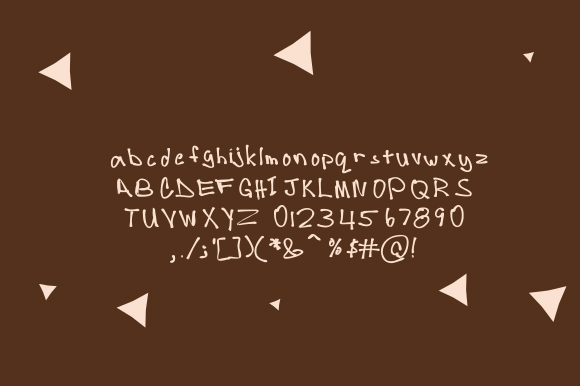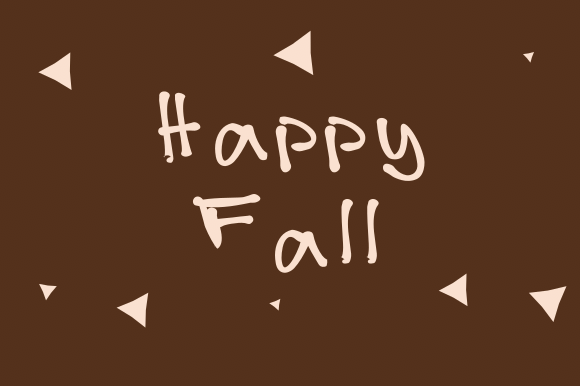
Cringe Worthy Font: The Quirky Handwritten Font for Creative Projects
Are you tired of using the same old boring fonts for your creative projects? Look no further! Cringe Worthy Font is a quirky handwritten font that’s perfect for adding a personal touch to your designs. Whether you’re a designer, crafter, or simply someone who loves to get creative, this font is sure to bring a smile to your face.
What is Cringe Worthy Font?
Cringe Worthy Font is a unique and playful handwritten font that’s designed to add a touch of whimsy to your projects. Its quirky and irregular letterforms make it perfect for creating eye-catching designs that stand out from the crowd. The font is highly legible, making it suitable for use in a variety of applications, from digital designing to crafting and card making.
Features of Cringe Worthy Font
- Quirky and playful design: Cringe Worthy Font has a distinctive and irregular design that’s sure to add a touch of personality to your projects.
- Highly legible: Despite its quirky design, the font is highly legible, making it suitable for use in a variety of applications.
- Handwritten feel: The font has a warm and handwritten feel that’s perfect for creating personal and engaging designs.
- Versatile: Cringe Worthy Font can be used in a variety of projects, from digital designing to crafting and card making.
Uses of Cringe Worthy Font
Cringe Worthy Font is perfect for a wide range of creative projects, including:
- Crafting: Add a personal touch to your crafting projects, such as scrapbooking, journaling, and card making.
- Digital designing: Use the font in your digital designs, such as social media graphics, blog posts, and presentations.
- Greeting cards making: Create unique and personalized greeting cards for special occasions.
- Presentations: Add a touch of personality to your presentations and make them more engaging.
Benefits of Using Cringe Worthy Font
Using Cringe Worthy Font in your creative projects has several benefits, including:
- Unique designs: The font’s quirky design ensures that your projects stand out from the crowd.
- Personal touch: The font’s handwritten feel adds a personal touch to your designs, making them more engaging and relatable.
- Easy to use: The font is highly legible and easy to use, making it perfect for designers and crafters of all levels.
Tips for Using Cringe Worthy Font
Here are some tips for using Cringe Worthy Font in your creative projects:
- Experiment with different colors: Try pairing the font with different colors to create unique and eye-catching designs.
- Mix and match with other fonts: Combine Cringe Worthy Font with other fonts to create interesting and dynamic designs.
- Use it for headings and titles: The font’s quirky design makes it perfect for use in headings and titles.
| Font Name | Cringe Worthy Font |
| Author | Dream Big Digital Design |
Cringe Worthy Font is a quirky and playful handwritten font that’s perfect for adding a personal touch to your creative projects. Its unique design, high legibility, and versatility make it suitable for use in a wide range of applications, from digital designing to crafting and card making. Whether you’re a designer, crafter, or simply someone who loves to get creative, Cringe Worthy Font is sure to bring a smile to your face and add a touch of whimsy to your designs.